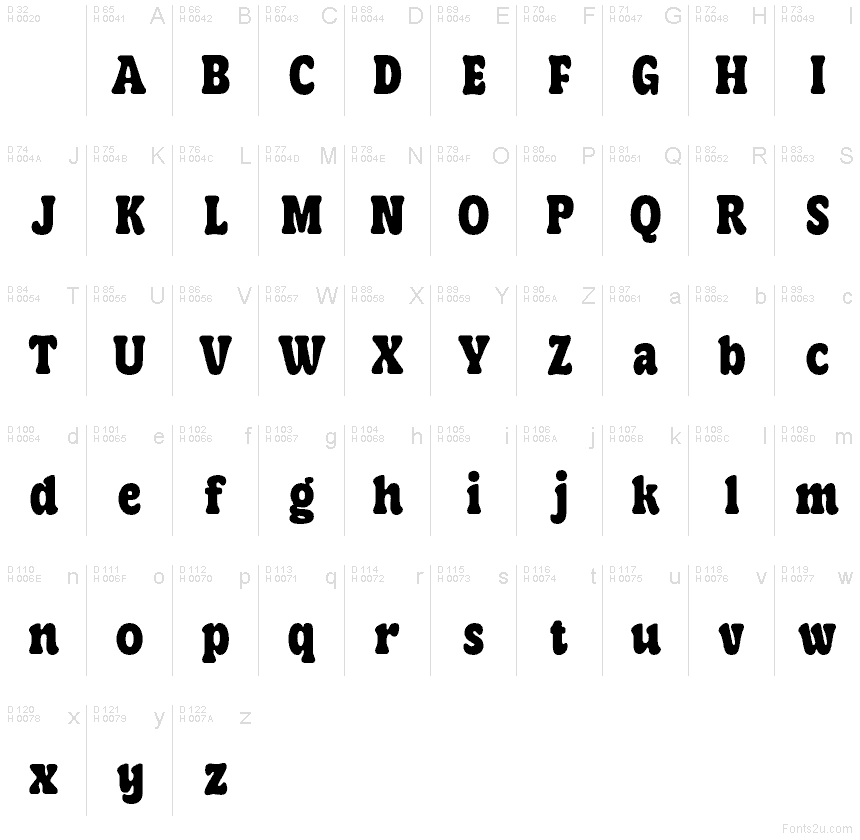
CS Mondy Drawn font by Craft Supply Co. is a free bold hand-drawn display serif font. Built within the CS Mondy family, it carries generous, inky strokes, soft bulbous serifs, and subtly wobbled outlines that feel thumb-pressed rather than machined. The weight is hefty but friendly, with swelling curves and cushioned corners that add warmth and a tactile, print-like presence.
Using CS Mondy Drawn, headlines land with character—great for posters, packaging, cafe menus, boutique branding, book covers, social posts, and merch. Its chunky rhythm reads confidently at large sizes, while the hand-rendered edges keep it approachable. Pair this free font with a clean geometric sans for body copy, and give it a touch of breathing room so those rounded serifs can shine.